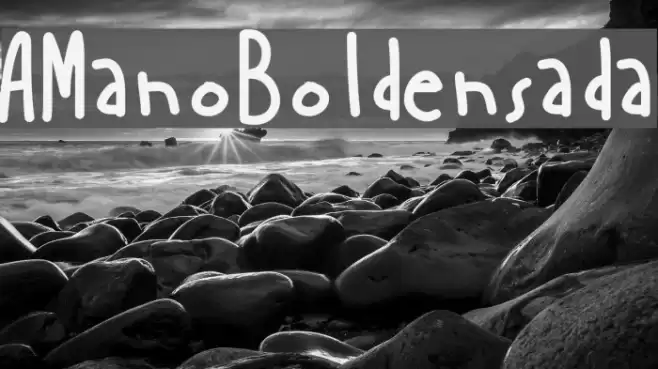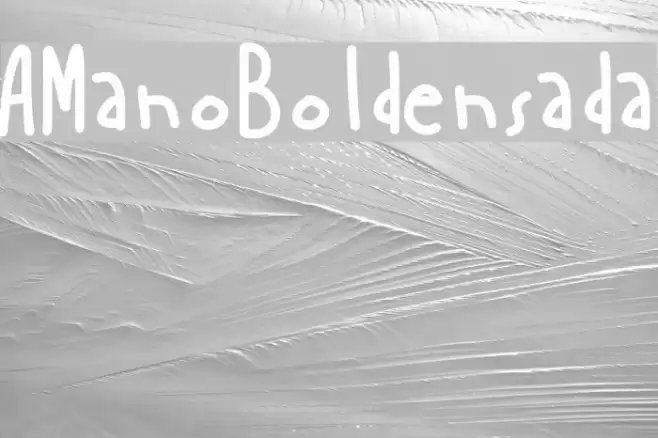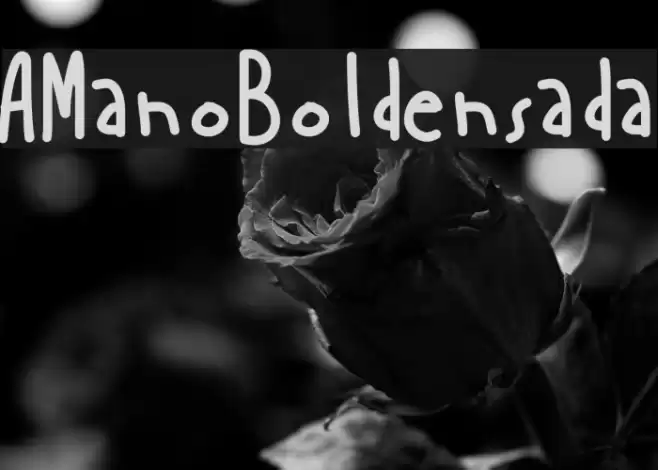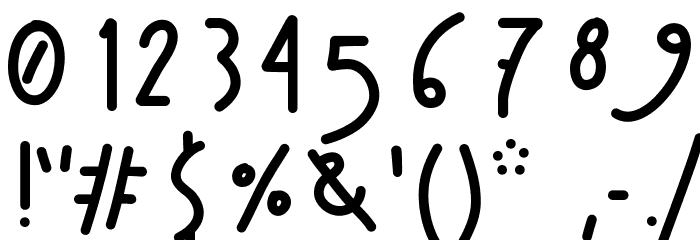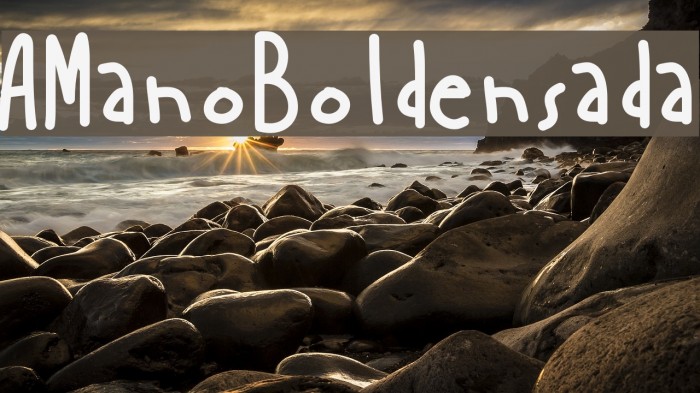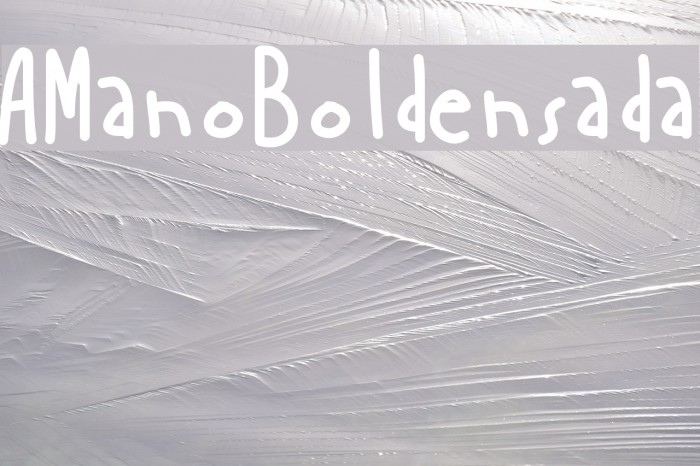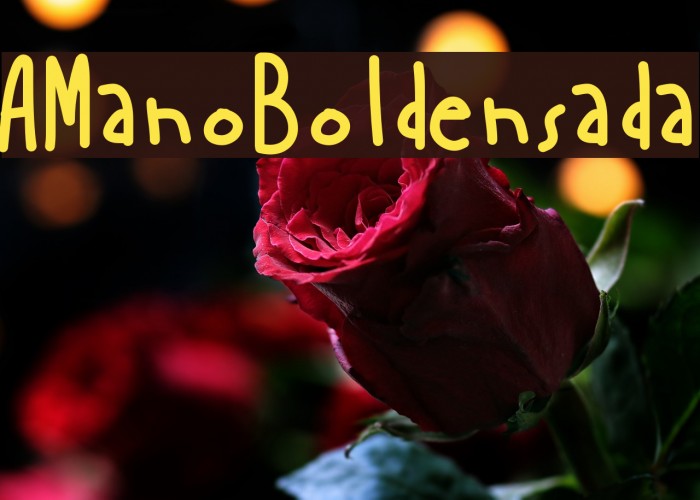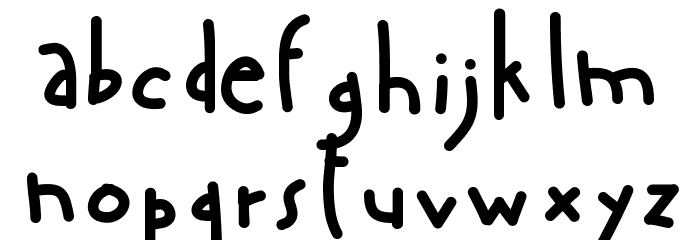
AManoBoldensada
This font features a playful and informal handwritten style, characterized by its rounded and slightly irregular letterforms. The uppercase letters are bold and prominent, while the lowercase letters maintain a consistent flow with a casual appearance. The numerals and special characters follow the same playful design, making the font suitable for creative and informal contexts. The strokes are consistent in thickness, providing a uniform look across all characters. This font exudes a friendly and approachable vibe, perfect for projects that require a personal touch.
A playful, handwritten font with rounded and informal letterforms.
- Proposed Projects: Ideal for children's books, greeting cards, playful branding, and casual invitations.
- Overall Style: Casual
- Use Case: Headlines, Logos, Informal Text